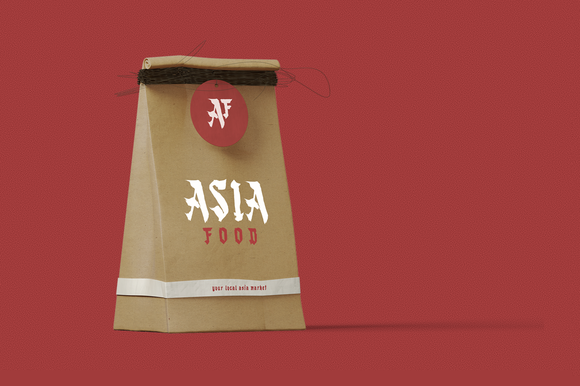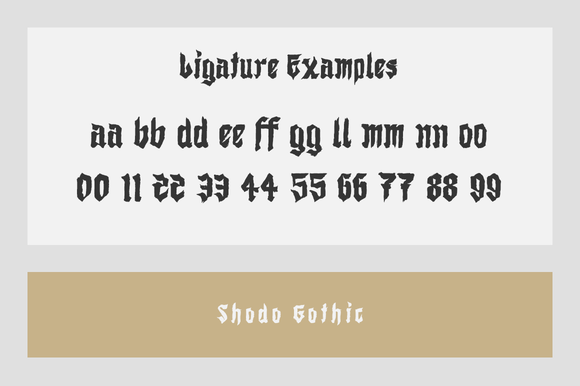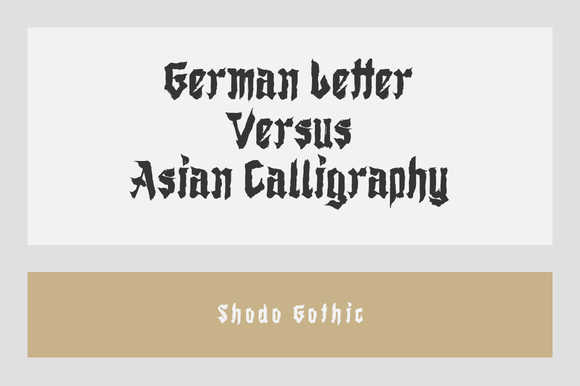
Introduction to Shodo Gothic Font
Shodo Gothic is a combination of western black letter typography and Asian calligraphy.
Key Features of Shodo Gothic Font